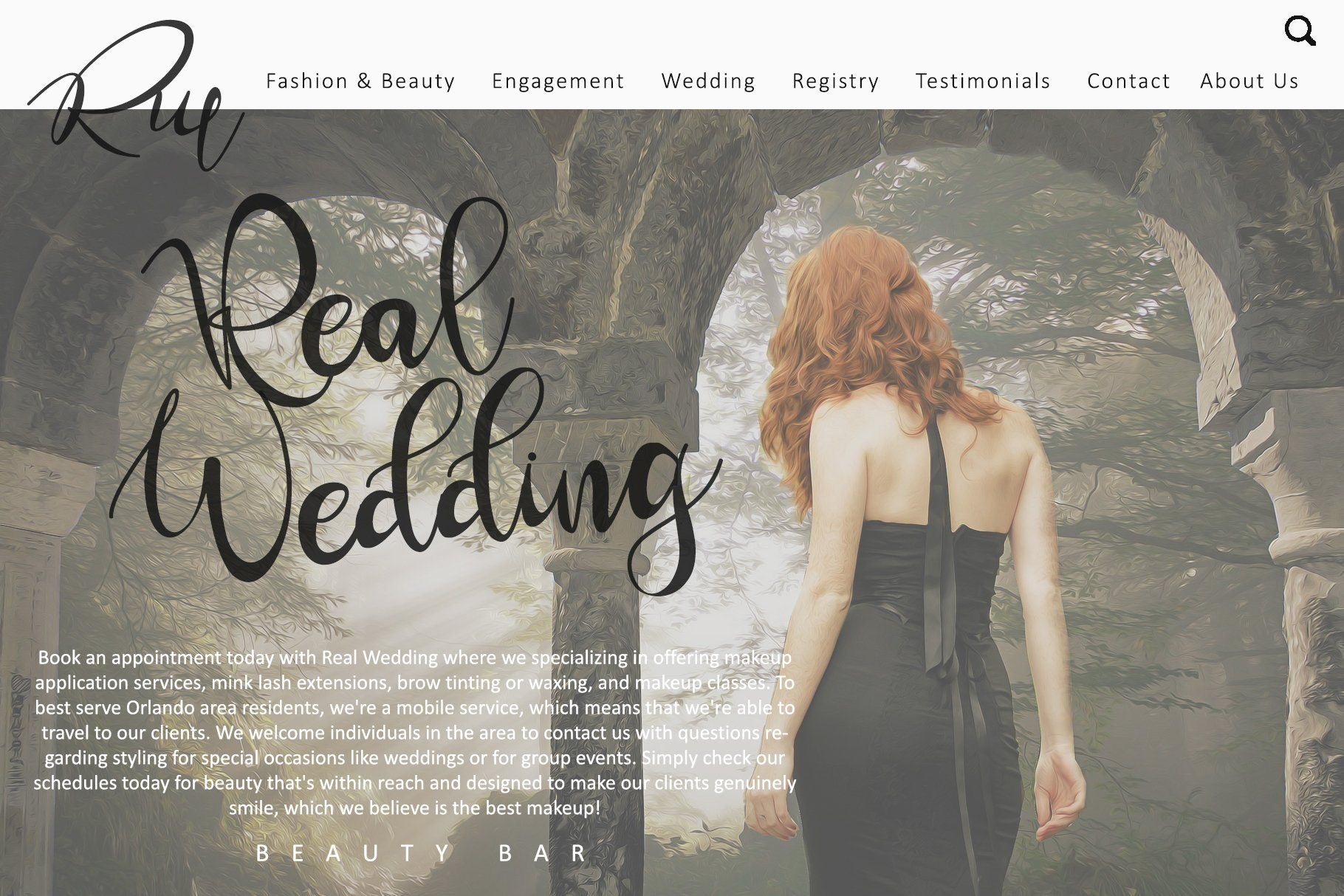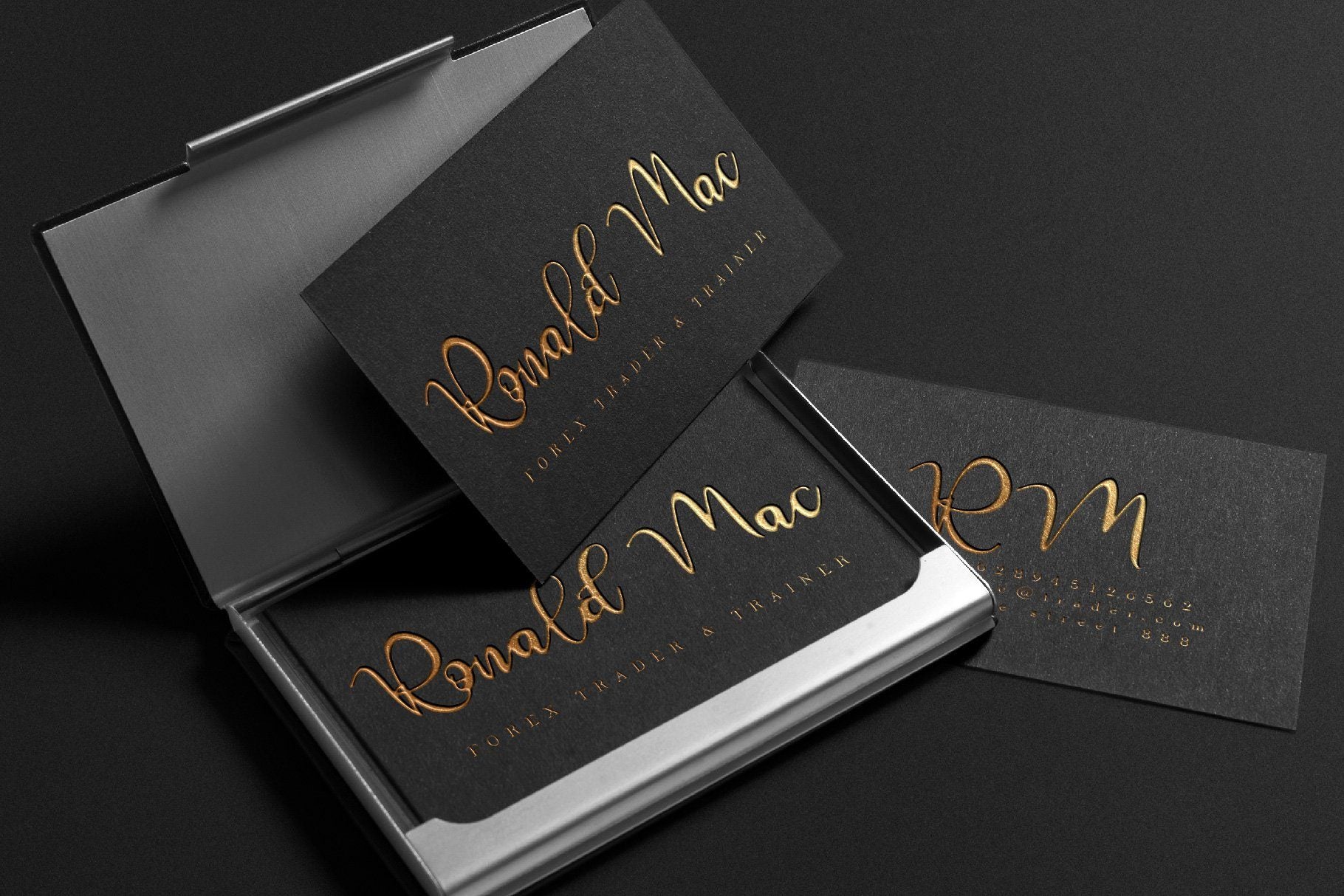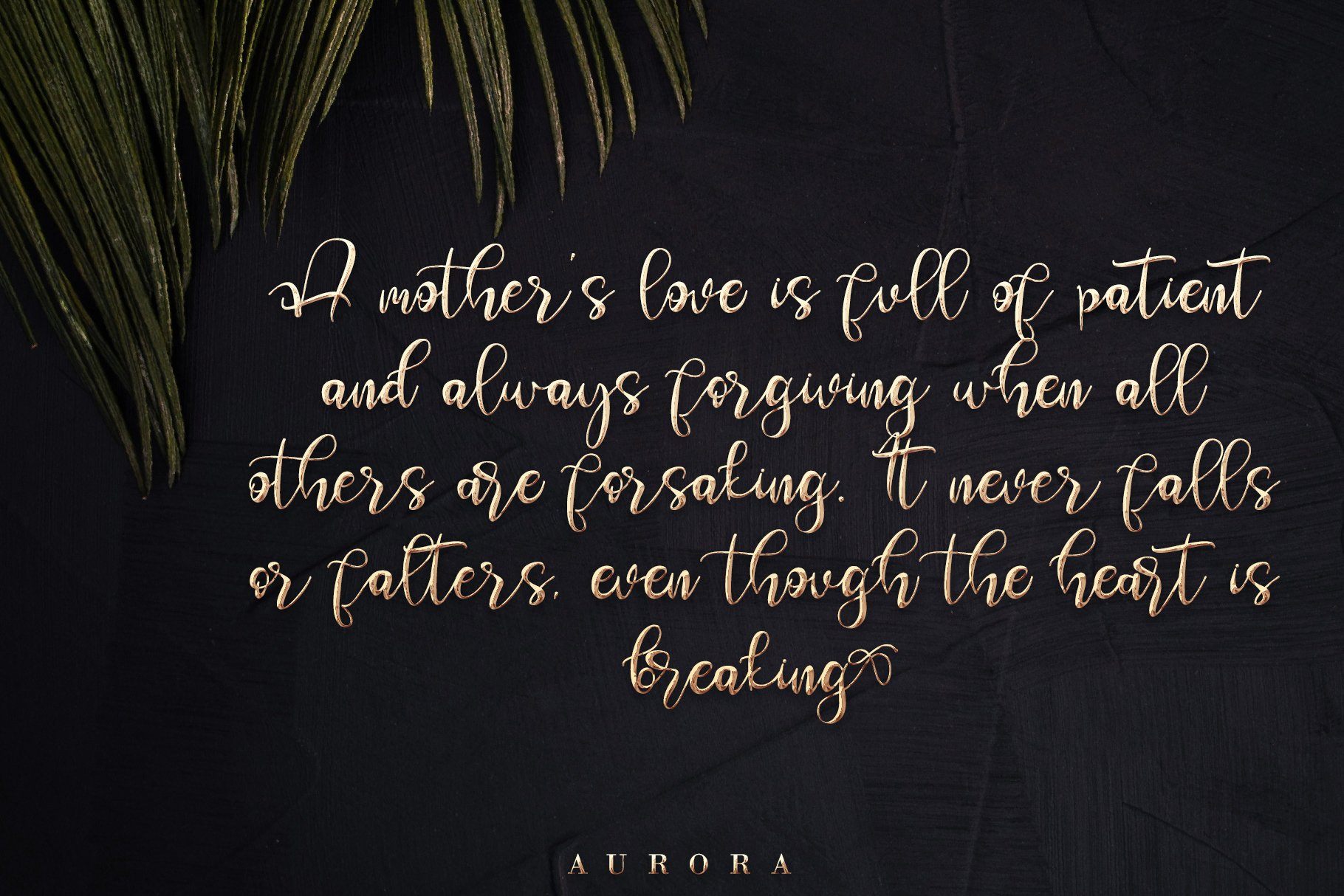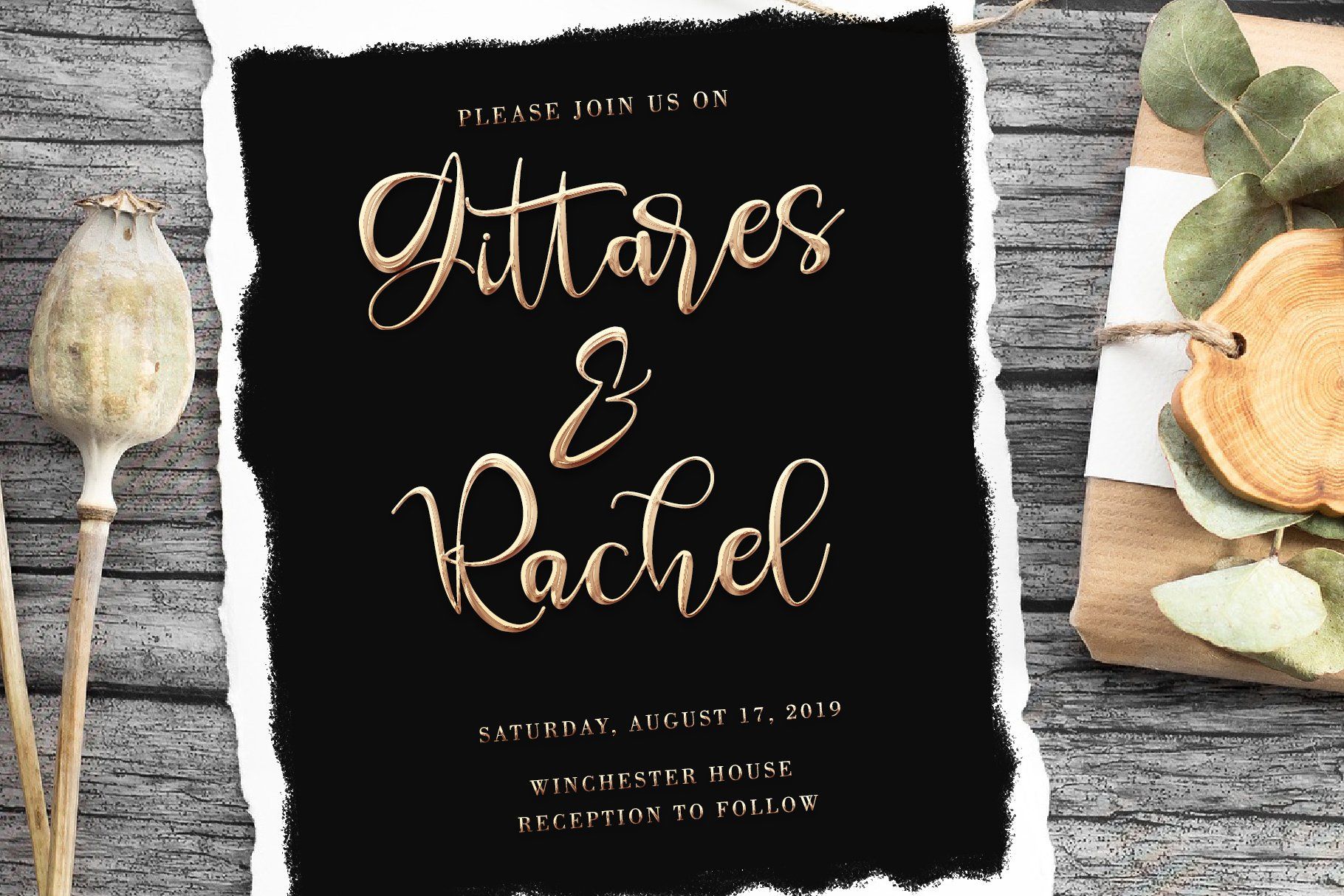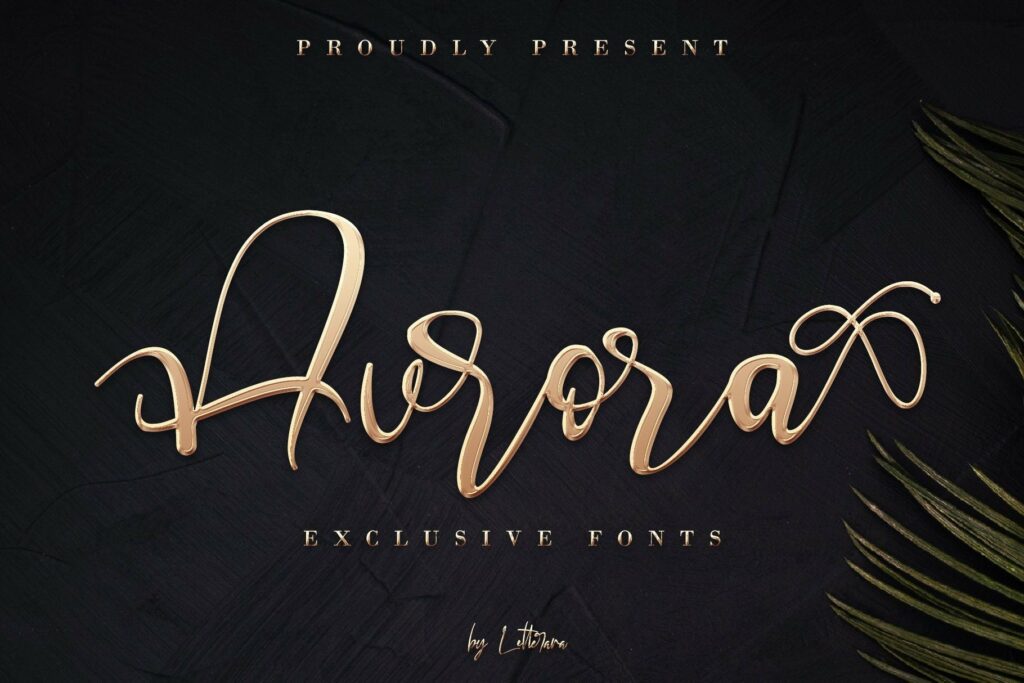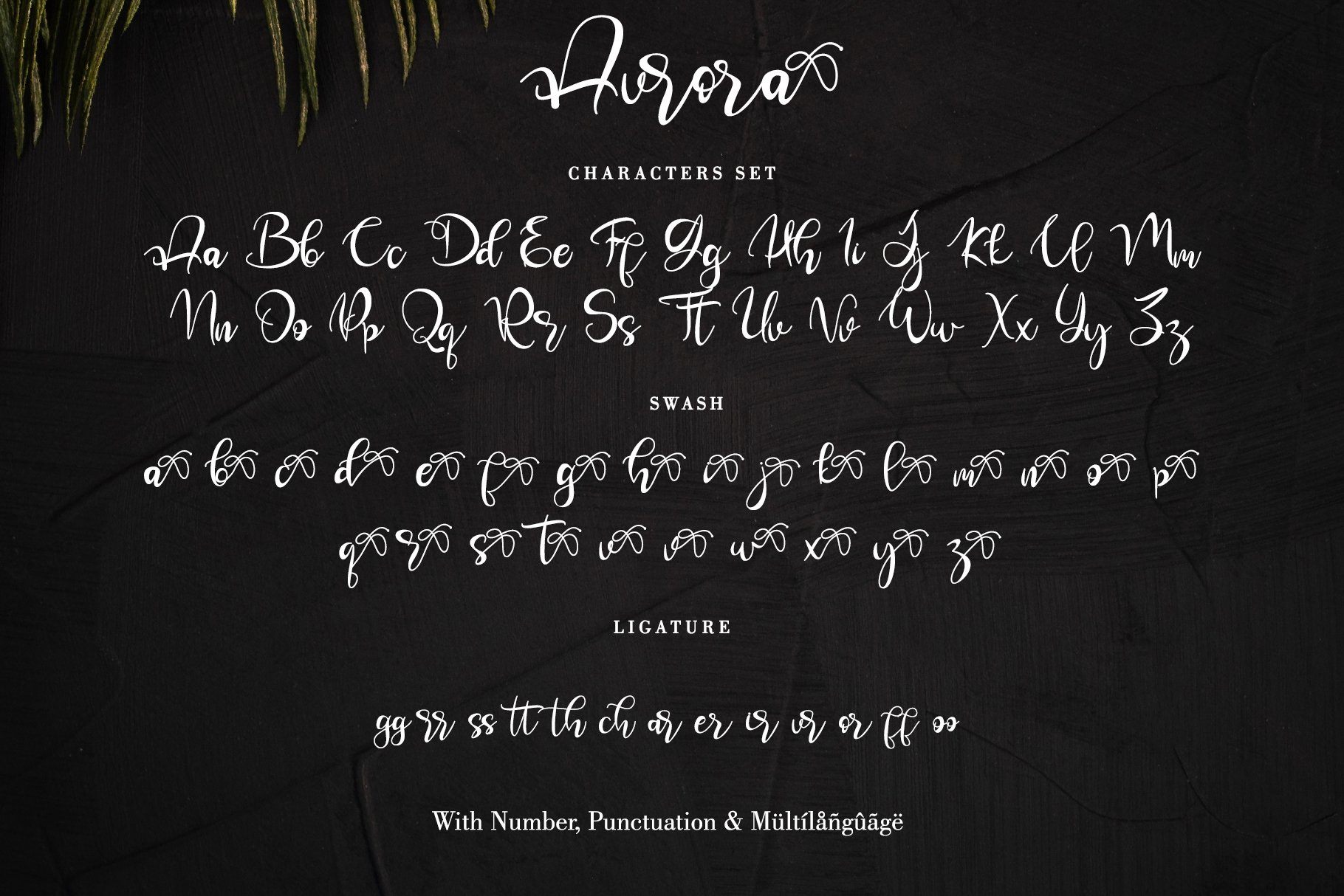
Aurora
About Aurora
Aurora Is A Beautiful Exclusive Font With Its Different Several Styles Perfectly Working Together To Create Bright Standout Designs! Thanks for checking out my store, and feel free to get in touch if you have any questions!  Features : Upper Case & Lowercase Numerals Punctuations (OpenType Standard) Accents (Multilingual characters) Swah, Ligatures, Works on PC & Mac Simple installations Accessible in the Adobe Illustrator, Adobe Photoshop, Adobe InDesign, even works on Microsoft Word. don’t wait anymore, put it in your shopping basket 🙂 and follow me, because there will be many promos! Our other products : BEST SELLER JENNIE BLACK PINK SIGNATURE ANDORA BRIGITTA HEANFFE EIFFEL IN LOVE ( FONT TRIO) BLACK PINK SUMMER HONG KONG ANGEL MALEFICENT California Street BESTOWENS FAMILY